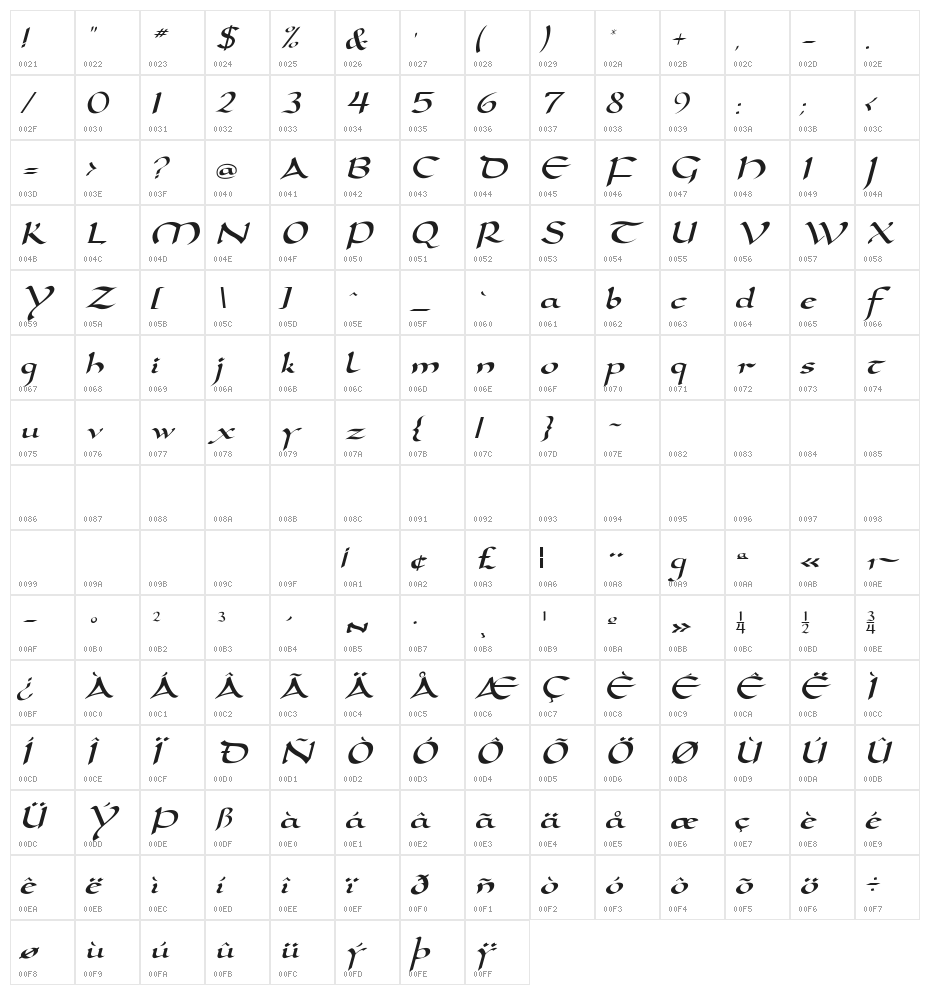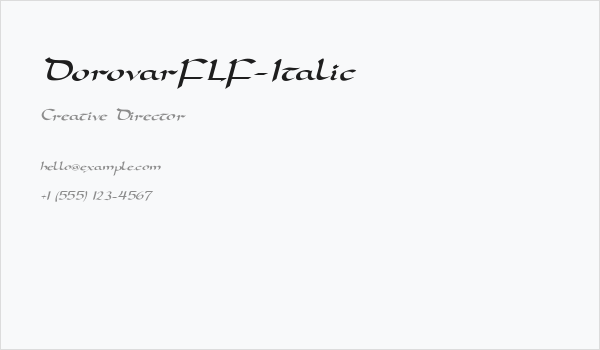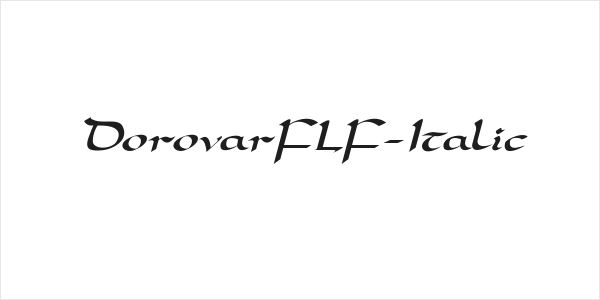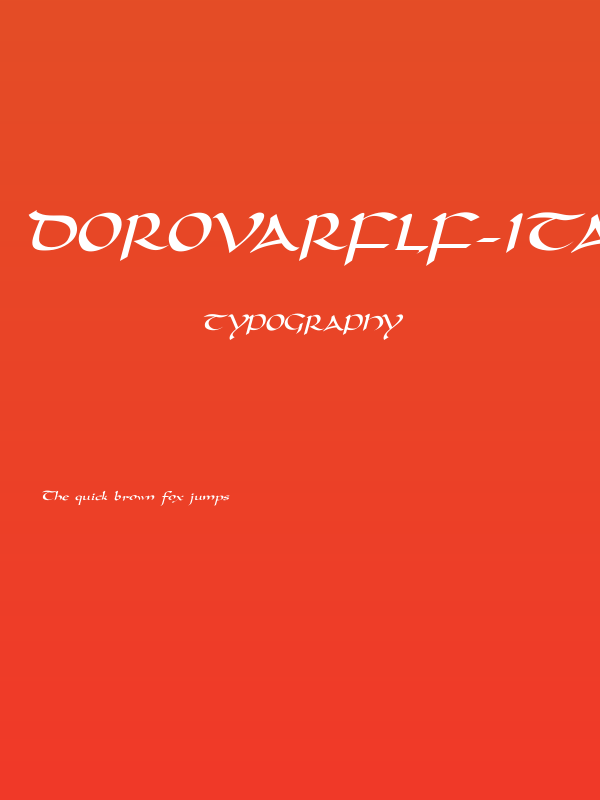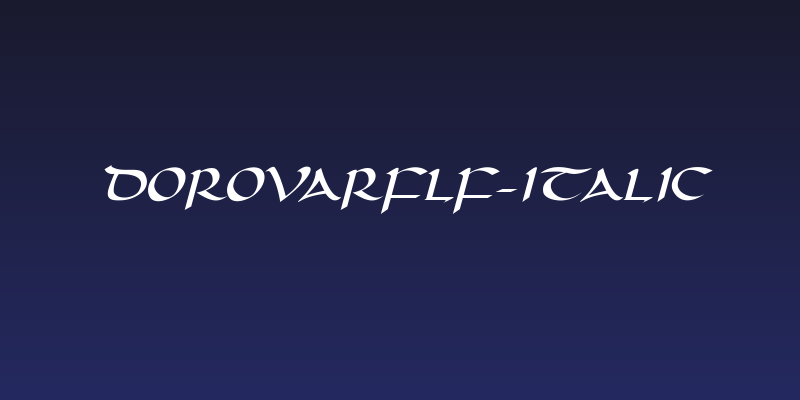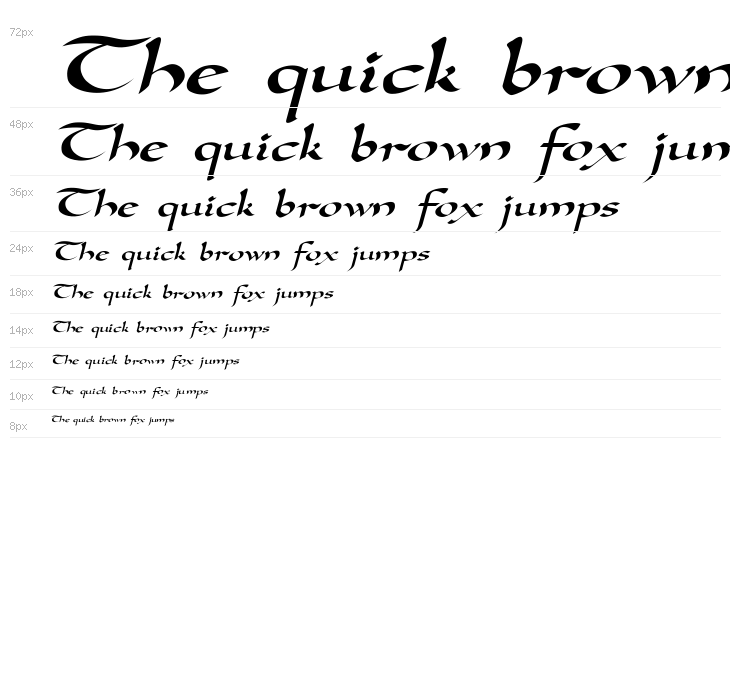
DorovarFLF-Italic Font
DorovarFLF-Italic Description
This font features a dynamic and flowing italic style, characterized by its sharp, angular strokes and elegant curves. The uppercase letters exhibit a strong presence with their elongated forms and pointed serifs, while the lowercase letters maintain a consistent rhythm with their smooth, cursive-like connections. The numerals are distinct and maintain the same stylistic flair, ensuring readability while adding a touch of sophistication. Special characters are designed with the same attention to detail, making them seamlessly integrate with the rest of the typeface. Overall, this font exudes a sense of movement and grace, suitable for projects that require a touch of elegance and dynamism.
| Use Case | Logos, Invitations, Editorial Design |
| Proposed Projects | Ideal for branding, invitations, and editorial design where elegance and movement are desired. |